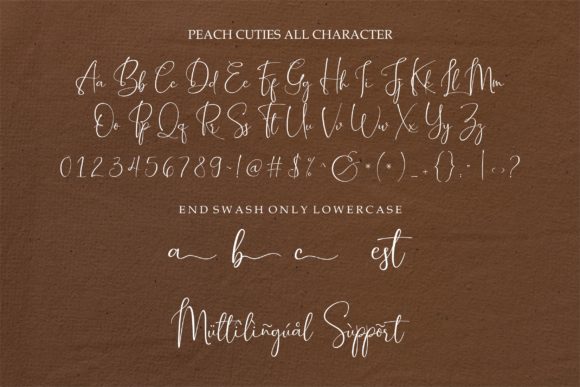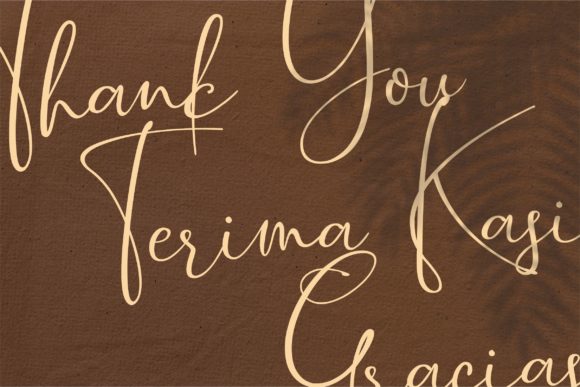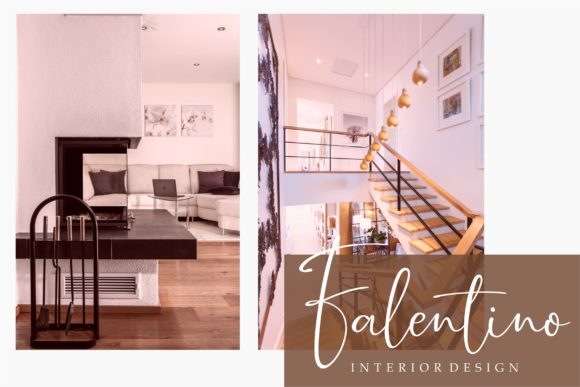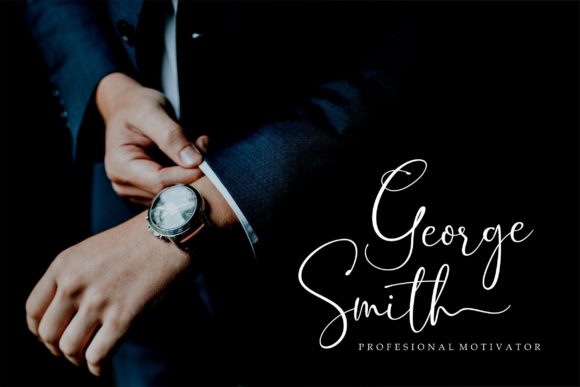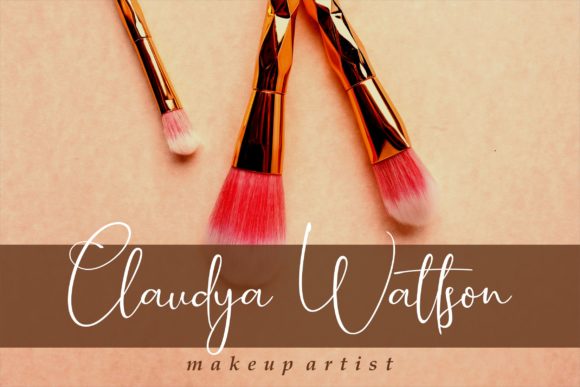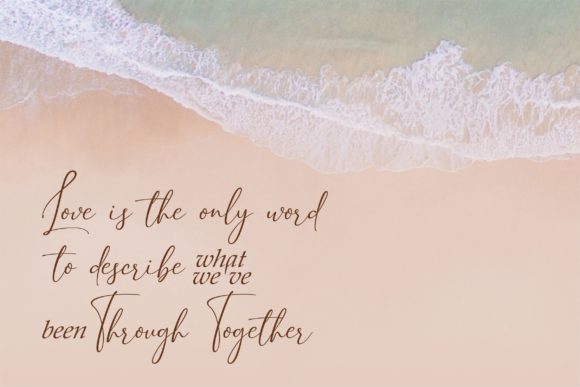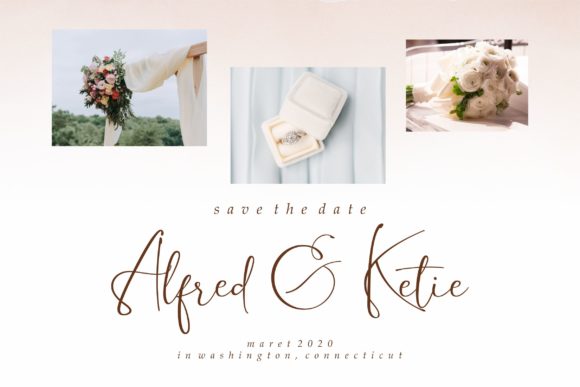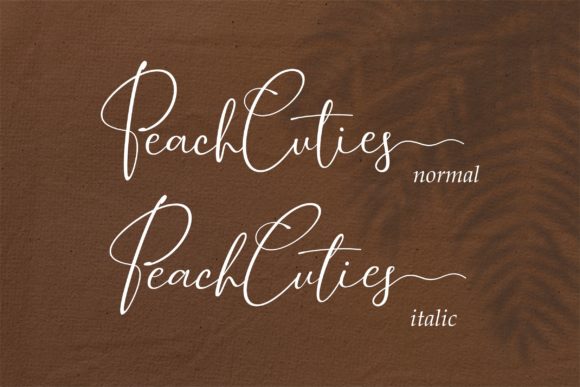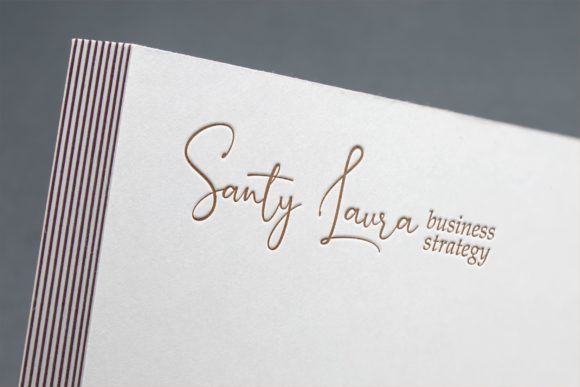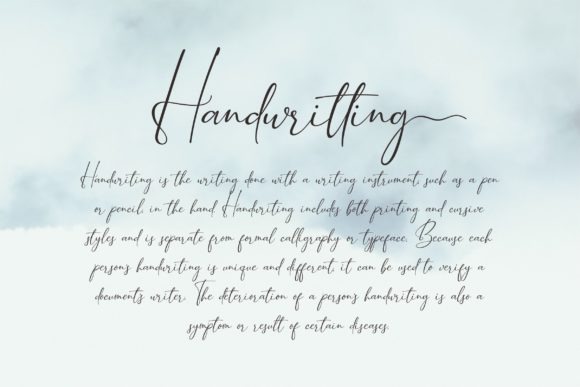
Peach Cuties Font
About Peach Cuties Font
Peach Cuties is a beautiful, soft hand-lettered script. The playful rounded characters make it the perfect font for creating stunning crafting art. Peach Cuties comes packed with stunning swashes, that will allow you to add a decorative touch within seconds. It comes in two distinct versions, Italic and Regular! Fall in love with its authentic feel and use it to create gorgeous wedding invitations, beautiful stationary art, eye-catching social media posts, and cute greeting cards.